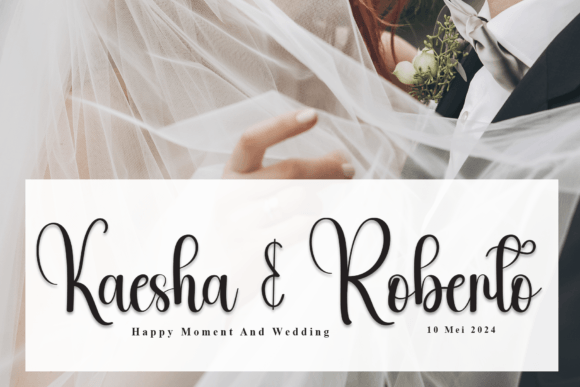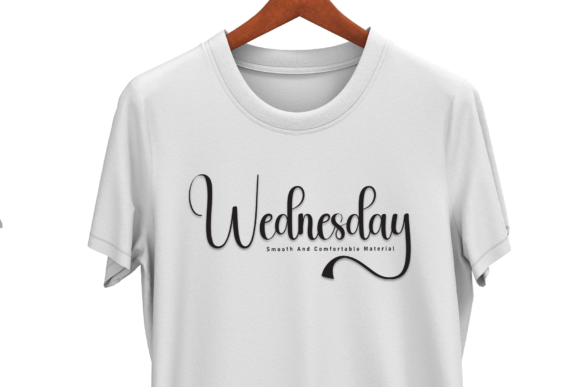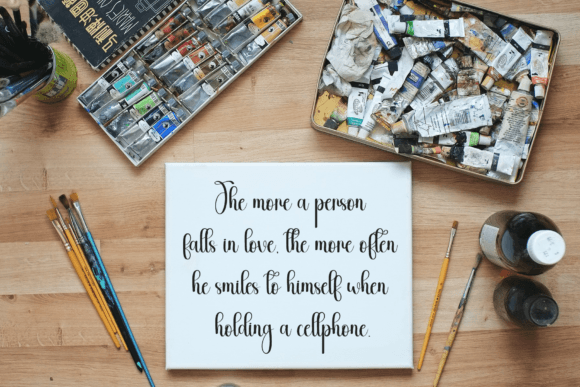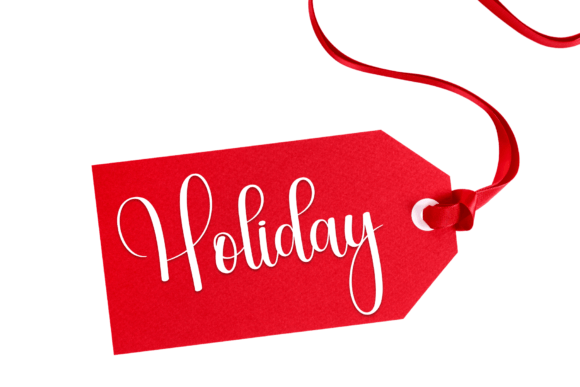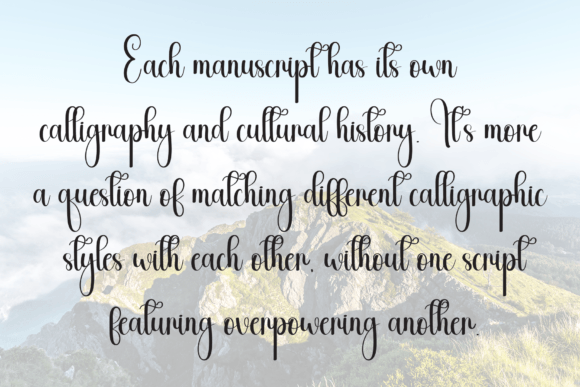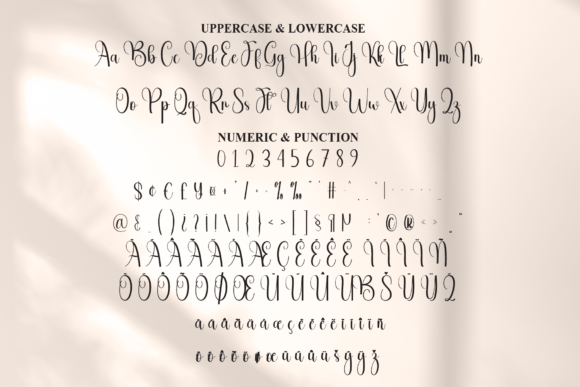
The Sweet Charm of Ainsley Font: A Designer’s Delight
I’ll never forget the time I was working on a wedding invitation project, and my client asked me to create a custom design that exuded warmth and friendliness. I spent hours scouring the internet for the perfect font, but nothing seemed quite right. That’s when I stumbled upon Ainsley Font, and it instantly became my go-to choice. In this article, I’ll share my experience with Ainsley Font, its features, and how to make the most of it in your designs.
An Honest Review of Ainsley Font
Ainsley Font is a sweet and friendly handwritten font that’s perfect for adding a touch of whimsy to your designs. Here’s what I love about it:
- ✨ Cute and versatile: Ainsley Font is ideal for a wide range of design projects, from wedding invitations to social media graphics.
- ✅ Elegant yet playful: The font’s elegant strokes and playful flair make it perfect for designs that require a touch of sophistication and fun.
- 💕 Emotional connection: Ainsley Font has a way of evoking emotions and creating a connection with your audience, making it perfect for designs that require a personal touch.
While Ainsley Font is an excellent choice, it’s not without its quirks. Here are a few things to keep in mind:
- 🤔 Limited use in long-form text: Ainsley Font is best suited for short-form text, such as headings and titles. It may not be the best choice for long-form text due to its playful and cursive nature.
- ⚠️ Kerning issues: As with any font, kerning issues may arise, especially when using Ainsley Font in combination with other fonts. Make sure to adjust the kerning to ensure optimal readability.
The Story Behind Ainsley Font
Ainsley Font was designed with the intention of creating a font that exudes warmth and friendliness. The designer aimed to create a font that would be perfect for designs that require a personal touch, such as wedding invitations and greeting cards. With its elegant strokes and playful flair, Ainsley Font has become a popular choice among designers and crafters.
| Font Name | Ainsley Font |
| What is Ainsley Font best suited for? | Ainsley Font is best suited for designs that require a touch of warmth and friendliness, such as wedding invitations, greeting cards, and social media graphics. |